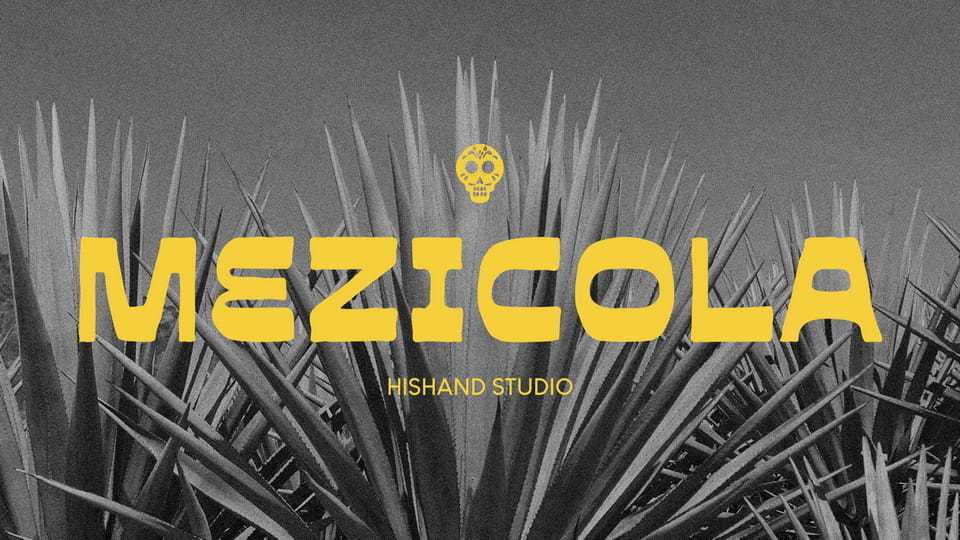
Download Mezicola font, a bold, heavy display typeface that grabs your attention the moment you see it. Inspired by old industrial signs and vintage graphic design, its thick and wide letters were made to stand out in any layout.